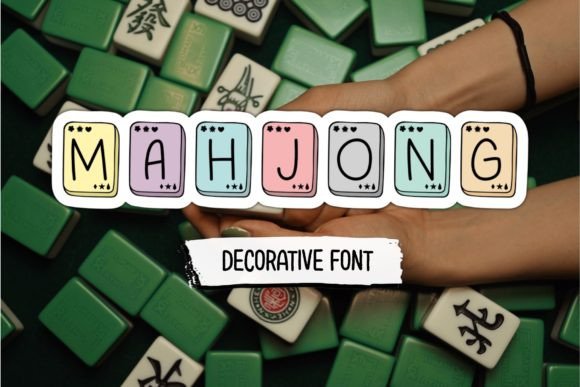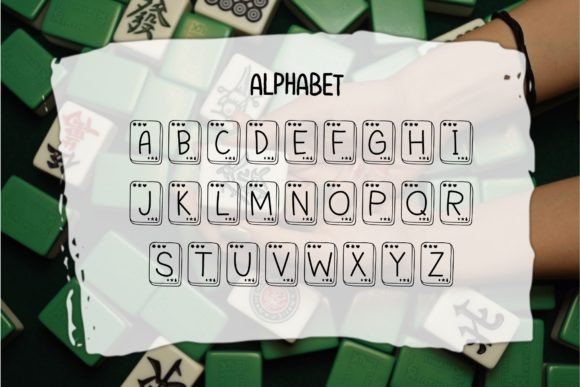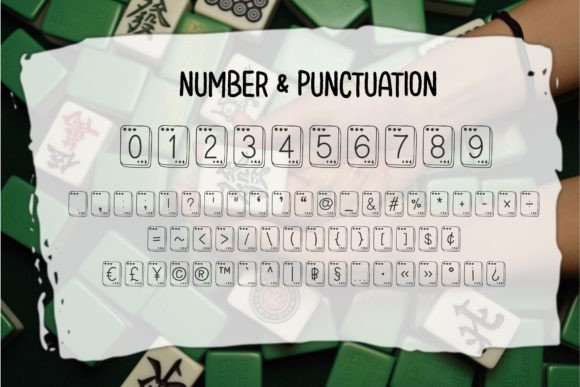
Mahjong Font
About the Mahjong Font
The Mahjong Font offers a perfect balance of form and function for your design needs. Mahjong is a stunning decorative font. This lovely font is the perfect fit for all of your logos, branding, social media, crafty DIY projects, and much more!
Its decorative nature makes Mahjong ideal for headlines, short text blocks in posters, or branding elements requiring a strong visual impact. It excels in packaging design where a touch of playful elegance is desired, particularly for products aimed at a younger, sophisticated demographic. However, its intricate details make it unsuitable for body text or UI elements where readability is paramount.
Consider pairing Mahjong with a clean sans-serif like Open Sans for contrast and improved readability in supporting text. For a more luxurious feel, a classic serif such as Garamond would complement its decorative strokes. Avoid pairing it with other highly decorative fonts to prevent visual clutter.
Mahjong’s overall personality is playful yet sophisticated, conveying a sense of both fun and refined quality. This makes it a strong choice for brands that want to project a unique and memorable image with a touch of artistic flair.
Mahjong Font Usage Examples
Mahjong Font Example